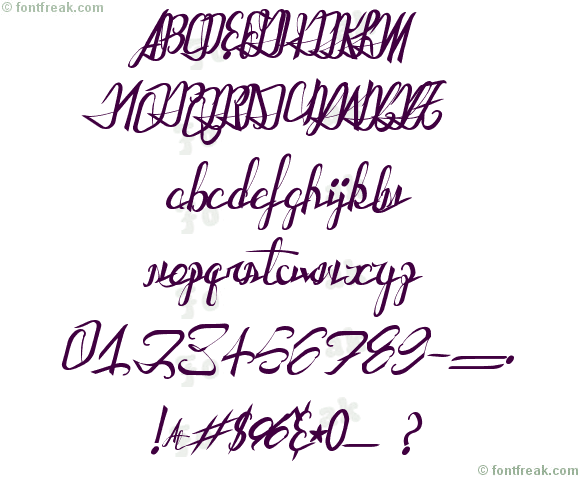
AstralProjections
AstralProjectionsItalic
AstralProjections by Xerographer Fonts is a captivating display font that embodies a unique blend of elegance and whimsy. This decorative typeface features a fluid, cursive style with a hand-drawn aesthetic, making it an ideal choice for projects that require a personal touch. The font showcases varying stroke weights and a moderate contrast, which adds a dynamic visual interest to each letterform. The spacing is generous, allowing for easy readability, while the decorative elements create an ethereal quality that draws the viewer in.
AstralProjections is particularly well-suited for a range of creative applications. Wedding invitations benefit from its romantic flair, providing a sophisticated yet approachable charm. Movie posters can leverage its artistic style to evoke a sense of wonder and imagination, perfect for fantasy or adventure genres. Additionally, restaurant menus can feature this font to convey a relaxed, inviting atmosphere, adding character to the dining experience. Small business owners looking to differentiate their branding will find it an effective way to capture attention and express their unique identity. Content creators can use this font to enhance their digital projects, from social media graphics to blog headers, making their work stand out in a crowded online space.
The target audience for AstralProjections includes graphic designers, small business owners, and content creators who seek a distinctive font that conveys creativity and individuality. The AstralProjections font free download option allows users to explore its potential without financial commitment, making it accessible for various projects. What sets this font apart is its ability to blend artistic flair with practicality, making it a versatile asset in any designer's toolkit. With its enchanting style, AstralProjections offers a refreshing alternative to conventional typefaces, inviting users to embrace their creative visions.